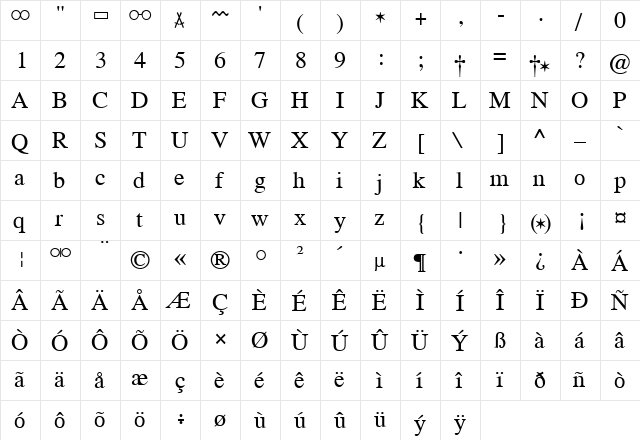
Romand Genealogie Normal
Design Context for Romand Genealogie Typeface
Romand Genealogie takes a measured approach to typography — its balanced proportions and neutral character make it a reliable workhorse for both digital and print work.